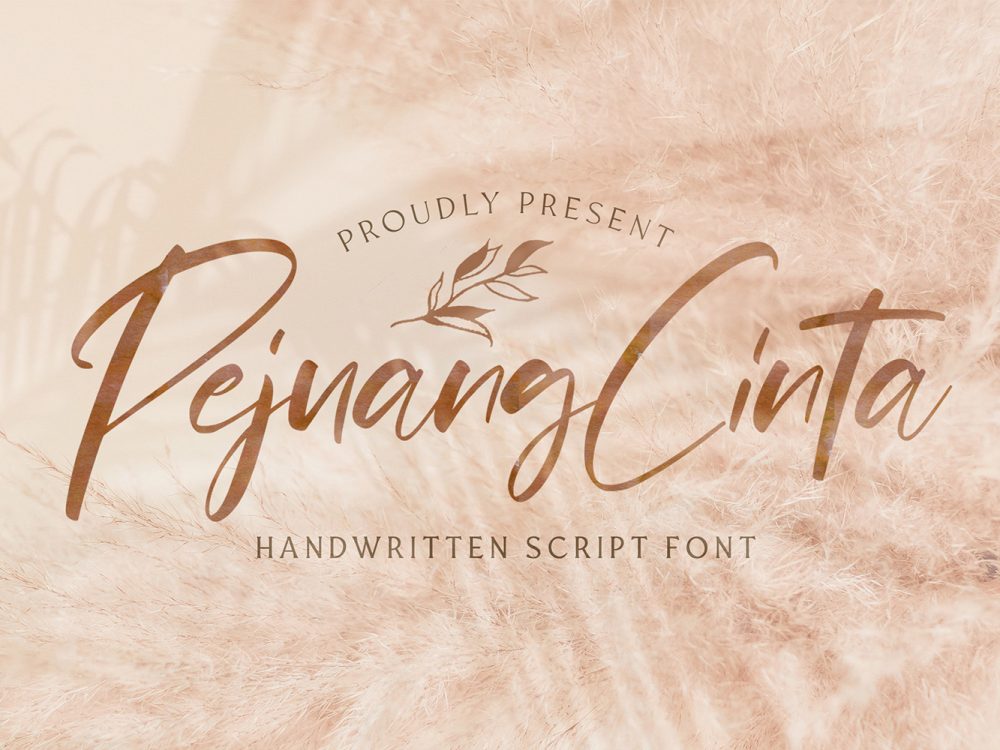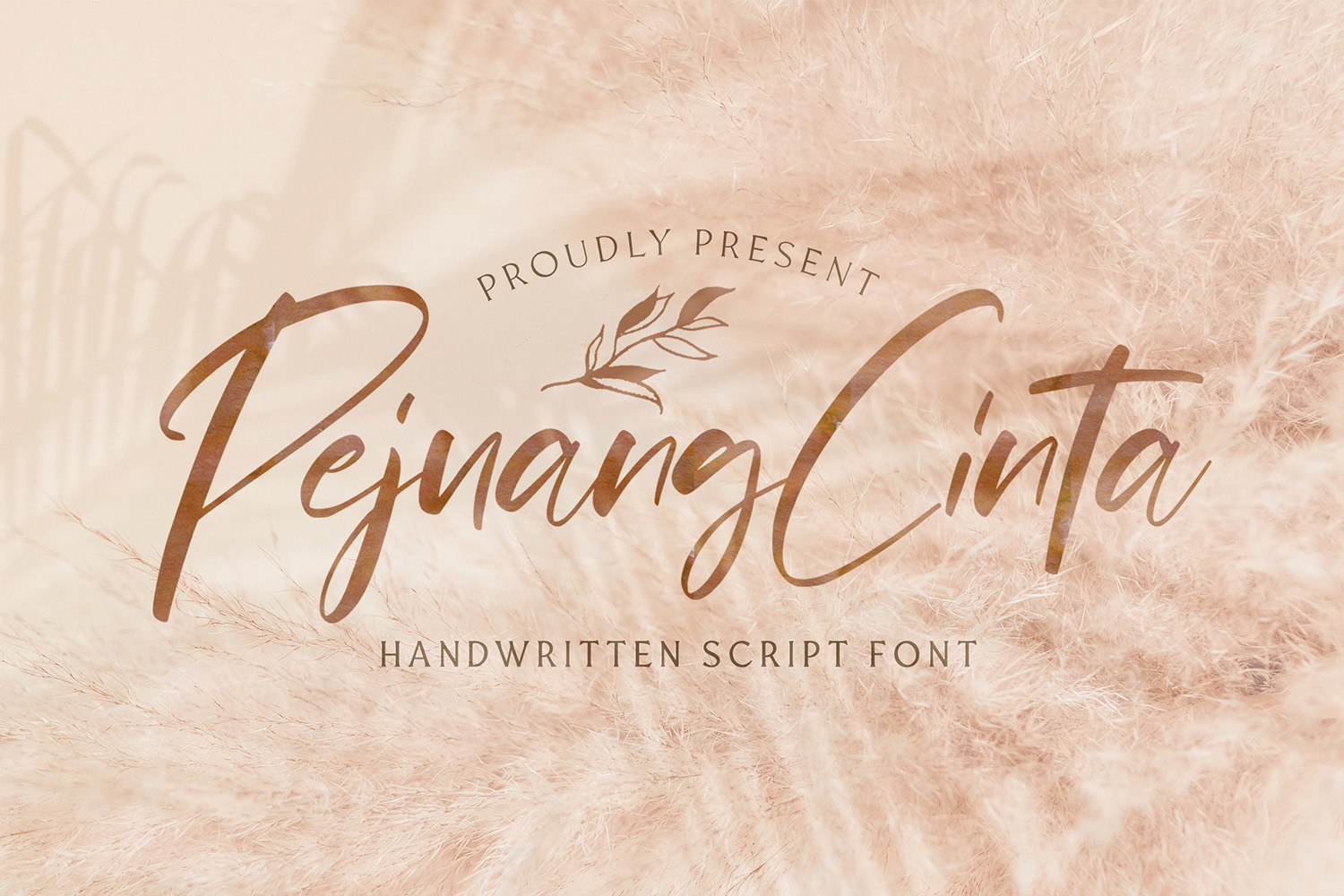
Pejuang Cinta Free Font
Pejuang Cinta Free Font is an interesting handwritten typeface that mimics the writing of a brush and compares favorably with modern calligraphic style among other fonts. This font is very suitable for creating various projects that require a scripted handwritten font. Use this font to create memorable romantic posters, wedding invitations, greeting cards, branding, flyers, t-shirt and pillow prints, and more. Improve your professional level using this font. If you like it don’t forget to check out the full version.